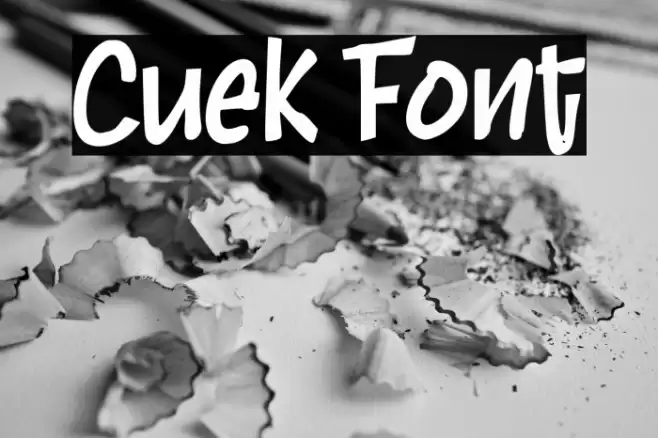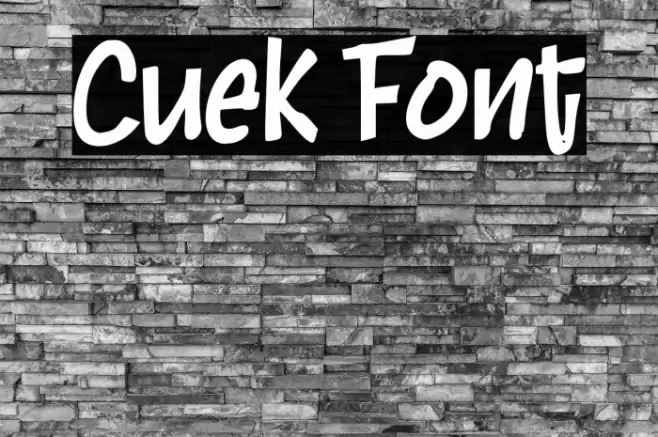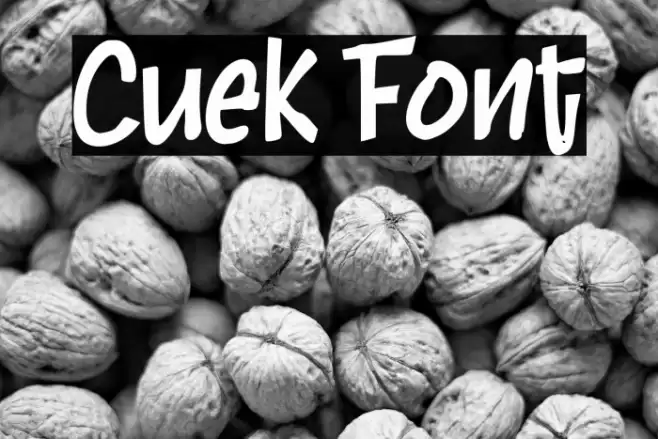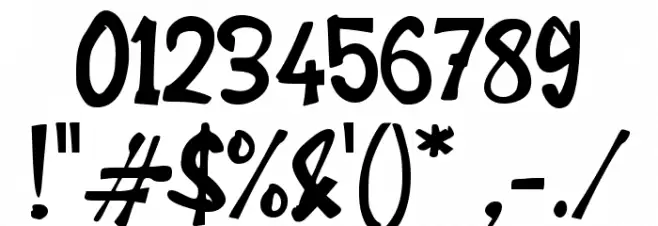
Cuek Font
Cuek Description
This font features a playful and dynamic style with a handwritten appearance. The letters are bold and slightly irregular, giving them a lively and informal feel. The uppercase and lowercase letters maintain a consistent flow, while the numbers and special characters complement the overall aesthetic. The strokes are thick and rounded, adding to the font's approachable and friendly character. This font is suitable for projects that require a personal touch or a casual vibe.
A playful, handwritten-style font with bold, rounded strokes from Uncategorized fonts.
- Proposed Projects: Ideal for greeting cards, children's books, casual branding, and social media graphics.
- Overall Style: Casual
- Use Case: Headlines, Logos, Informal Text